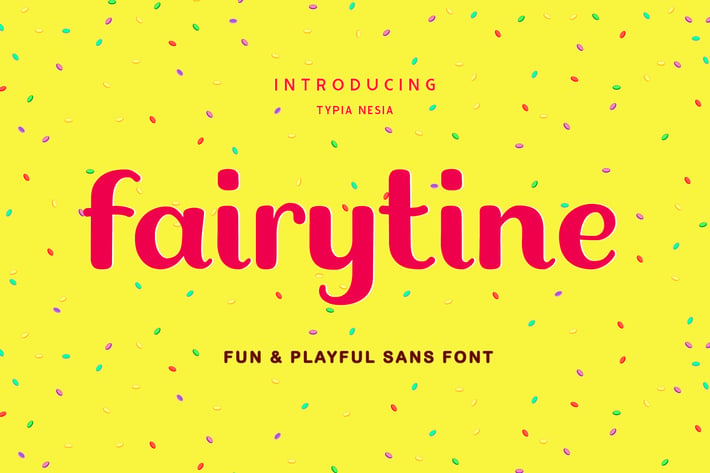
Fairytine Fun Groovy Font
Fairytine Fun Groovy Font - Funny Kid Game Font
Suitable for any design needs : kid game logo, kindergarten branding, food & beverage packaging, child kid design, modern advertising design, cartoon, animation, kid book, toys branding, poster quote, book / cover Title, website / blog, card, custom mug, pillow, t-shirts, and any hand-lettered needs.